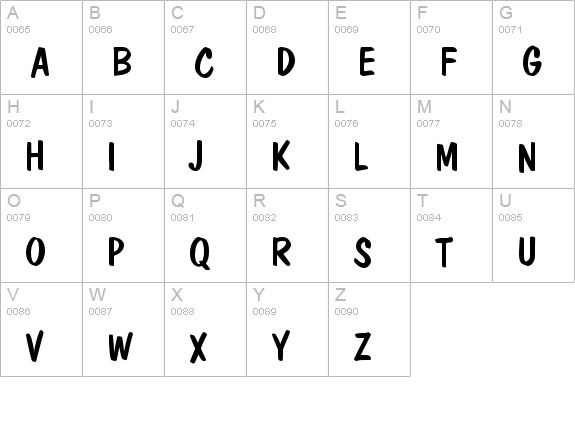
Pedro-Regular is the standard, neutral variant in the Pedro typeface family \xE2\x80\x94 well suited to general body text, paragraphs, and standard typographic work.
Pedro-Regular font is a versatile and modern typeface that exudes elegance and sophistication. With its clean lines and stylish appearance, Pedro-Regular is perfect for a wide range of design projects, from branding to editorial design. This font strikes the perfect balance between professionalism and creativity, making it ideal for both digital and print applications. The best part is that Pedro-Regular is available for free download at FontsMarket.com. This means you can easily access this high-quality font without breaking the bank. Don't miss out on the opportunity to enhance your projects with the timeless charm of Pedro-Regular font – download it today and elevate your designs to the next level!